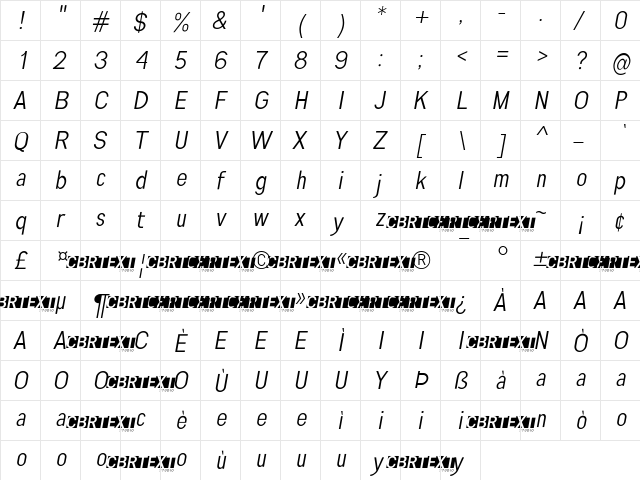
Engula Italic
Design Context for Engula Typeface
Engula is a composed and adaptable typeface that performs quietly and consistently across a wide range of design contexts. Its italic angle brings a sense of urgency and motion to the letterforms.
Pro Tip: Use Engula for emphasis, pull quotes, and subheadings where its slanted energy can add rhythm to the layout.